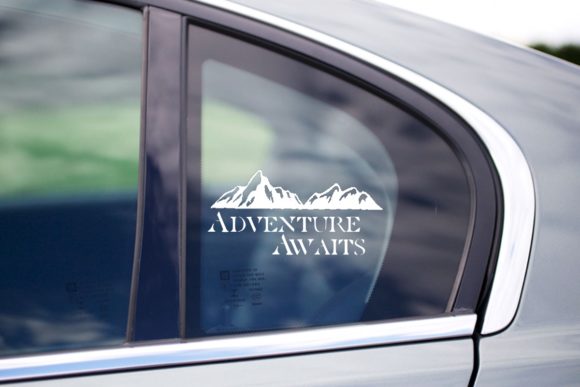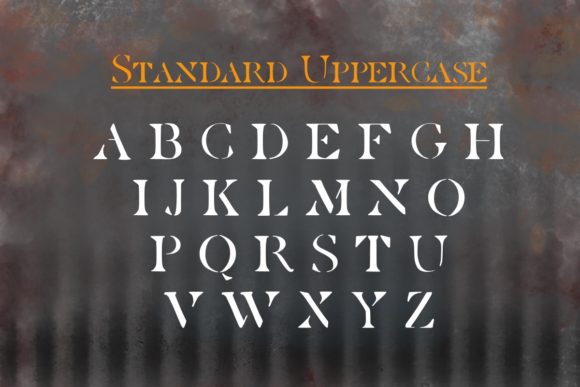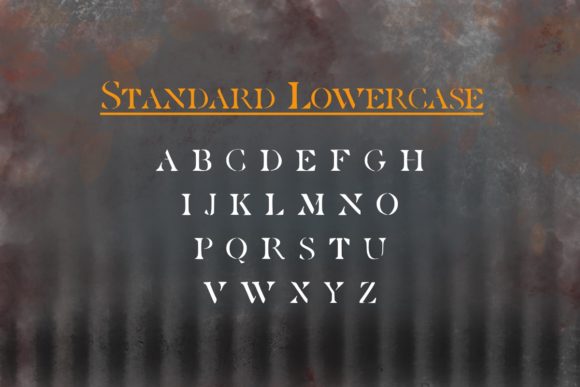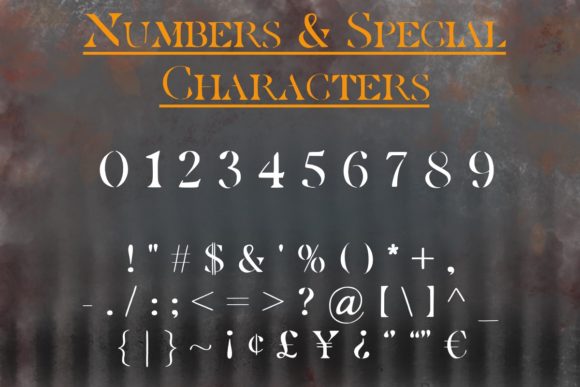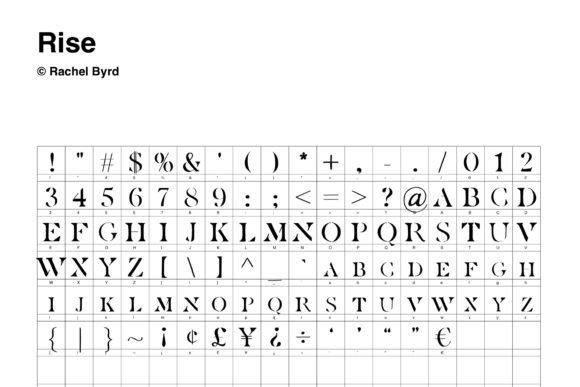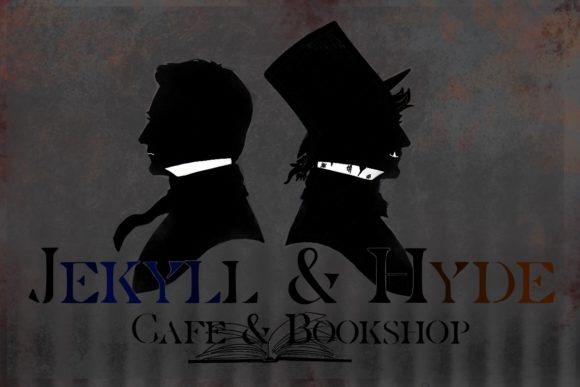
Introduction to Rise Font
Have you ever found yourself stuck in the middle of a creative project, desperately searching for the perfect font to elevate your design? You know, that moment when everything seems to be falling into place, and all you need is the right typography to make it truly shine. For designers, finding the right font can be a game-changer, and that’s where the Rise Font comes in.
This beautiful, simple serif font is more than just a pretty face – it’s a valuable design resource that can take your creative project from good to great. With its clean and elegant feel, the Rise Font is perfect for both formal and non-formal designs, making it an ideal choice for a wide range of projects.
Whether you’re working on a free download or a high-quality design, the Rise Font is a versatile and reliable option that’s sure to impress. Plus, with its transparent background and crisp lines, it’s a breeze to work with, making it an excellent addition to any design arsenal.
Key Features of Rise Font
- High-quality design resource with a modern and minimalist aesthetic, perfect for creative projects.
- Features a transparent background, allowing for seamless integration into any design without visual clutter.
- Comes in a range of sizes, from 14 to 72 points, making it suitable for a variety of design applications.
- Has a high resolution of 300 DPI, ensuring crisp and clear text display, even at larger sizes.
- Is a unique and creative addition to any design project, adding a touch of modernity and sophistication.
Honest Review: Rise Font
I recently had the chance to work with the Rise Font, and I must say, it’s been a game-changer for my creative projects. This font has a unique, modern design that instantly elevates the look of any text.
- High-quality design that’s perfect for creative projects ✨
- Transparent background, making it easy to use on any background ✨
- Excellent for designing logos, titles, and headings ✨
- The font doesn’t support all languages, which can be a problem for international projects ⚠️
- The weight and style options are limited, which can make it difficult to achieve the desired look ⚠️
Overall, I’m really impressed with the Rise Font. While it may have some limitations, its high-quality design and free download make it a valuable resource for any designer. I highly recommend it for any creative project that requires a modern and stylish font.
Rise Font
Getting the Most Out of Rise Font
To get the most out of Rise Font, experiment with different font sizes, colors, and effects. Combine it with other design elements to create visually appealing designs.
Rise Font is commonly used in creative projects such as logos, business cards, and social media graphics. Its high-quality design and transparent background make it an ideal choice for any design project.
Alex Brush Font is a beautiful script font that works well for creative projects, such as wedding invitations, menus, and greeting cards. It features a high-quality design and is available for free download. Alex Brush Font is suitable for designers who want a unique and elegant font for their design resource.
Compared to Rise Font, Alex Brush Font has a more delicate and intricate look, making it perfect for designs that require a touch of sophistication. However, it may not be as bold or attention-grabbing as Rise Font.